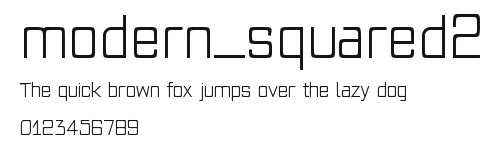
• Font Name: modern_squared2
• Full Font Name: modern_squared2
About modern_squared2.ttf
modern_squared2.ttf is a modern, elegant sans-serif font designed for ultimate readability and visual harmony. Perfect for branding, headlines, web design, and print materials.